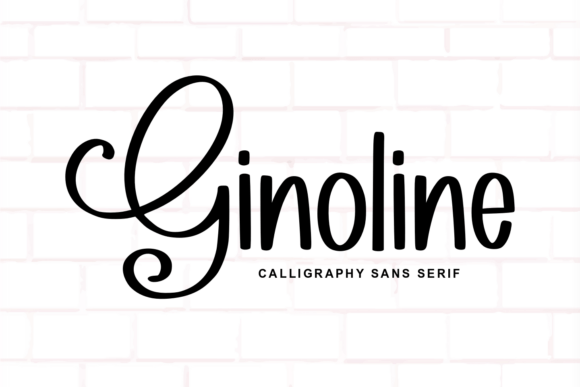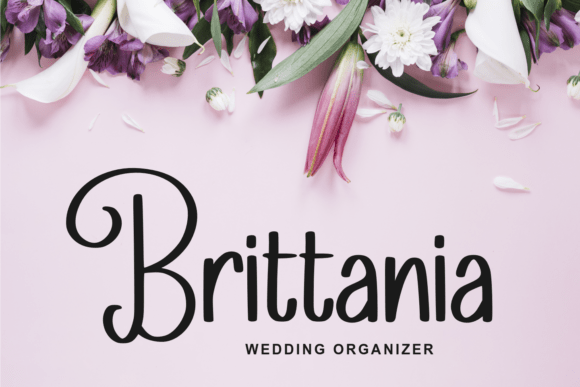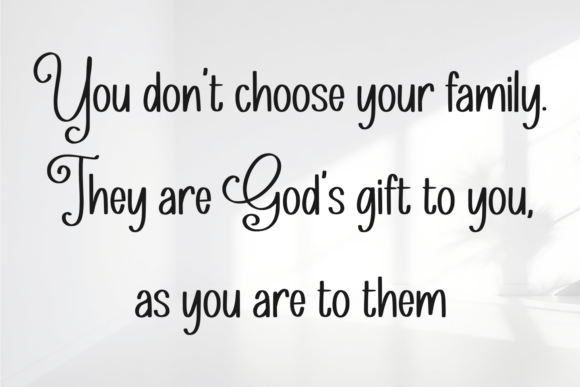
Ginoline Font
Ginoline is a playful and endearing sans-serif font that captures the charm of a handwritten script with a clean, modern twist. The letters have a whimsical, calligraphic flow, but without the ornate serifs, giving it a friendly and approachable feel. Its rounded edges and slightly uneven baselines add to its handmade character, making it feel genuine and personal.